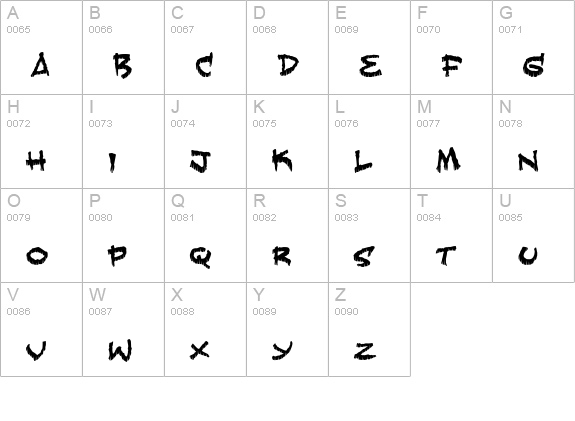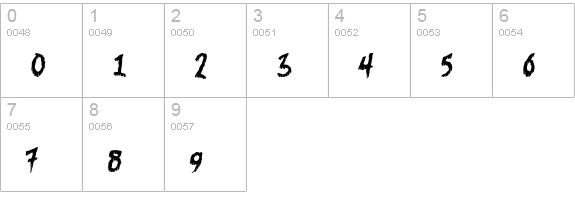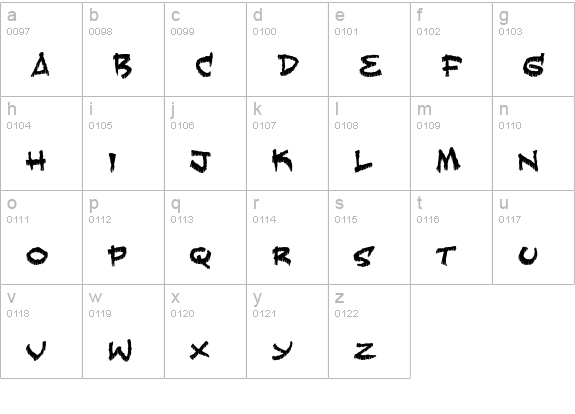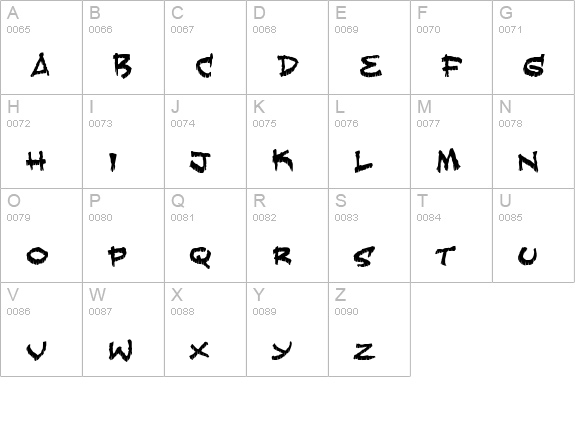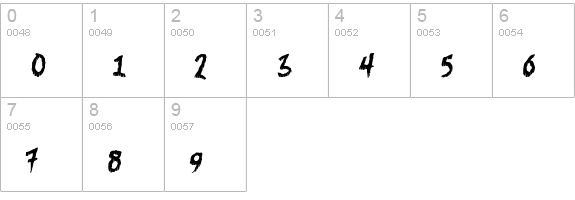
Fearless Font Details
Fearless font is a striking display typeface that exudes confidence and boldness. With its strong, angular lines and sharp edges, Fearless makes a powerful statement in any design project. This font is perfect for creating eye-catching headlines, posters, and logos that command attention. What sets Fearless font apart is its versatility - it can be used in both modern and traditional designs, adding a touch of edginess and flair. Whether you're looking to convey strength, courage, or a sense of adventure, Fearless font is the perfect choice. Best of all, Fearless font is available for free download at FontsMarket.com. So go ahead and unleash your creativity with this fearless and captivating typeface.